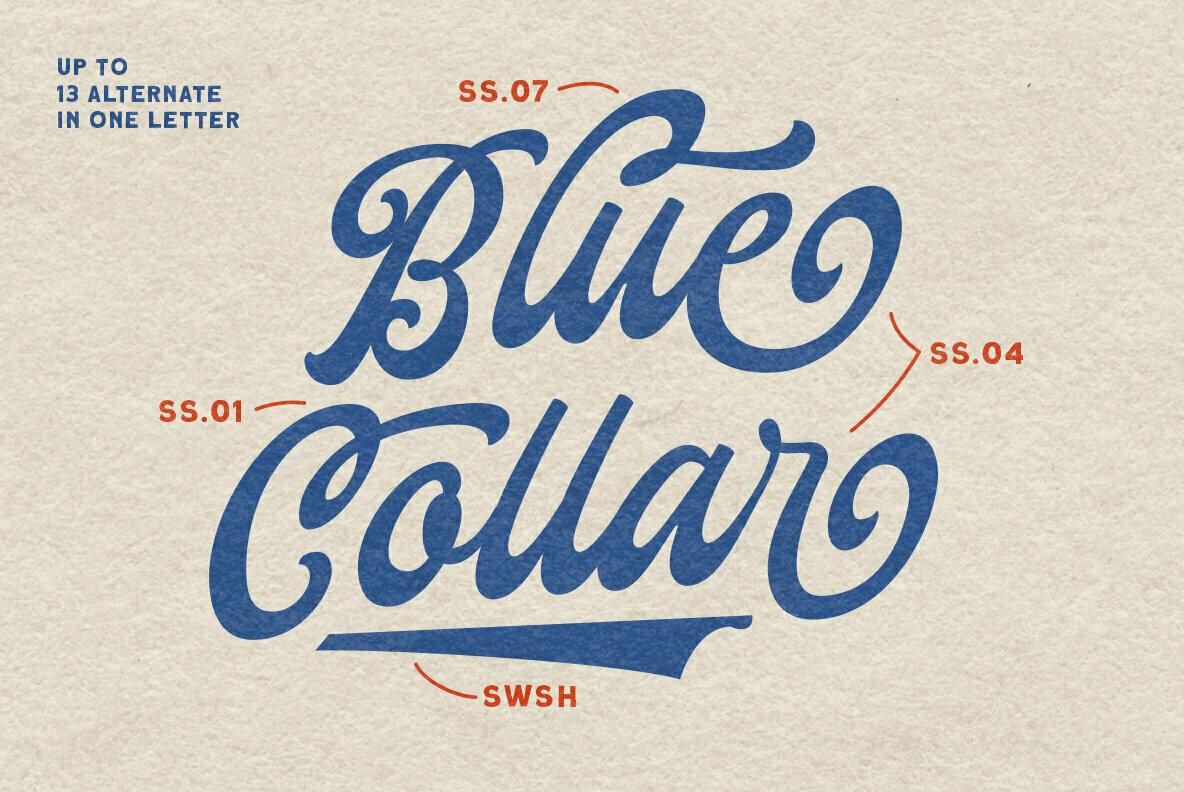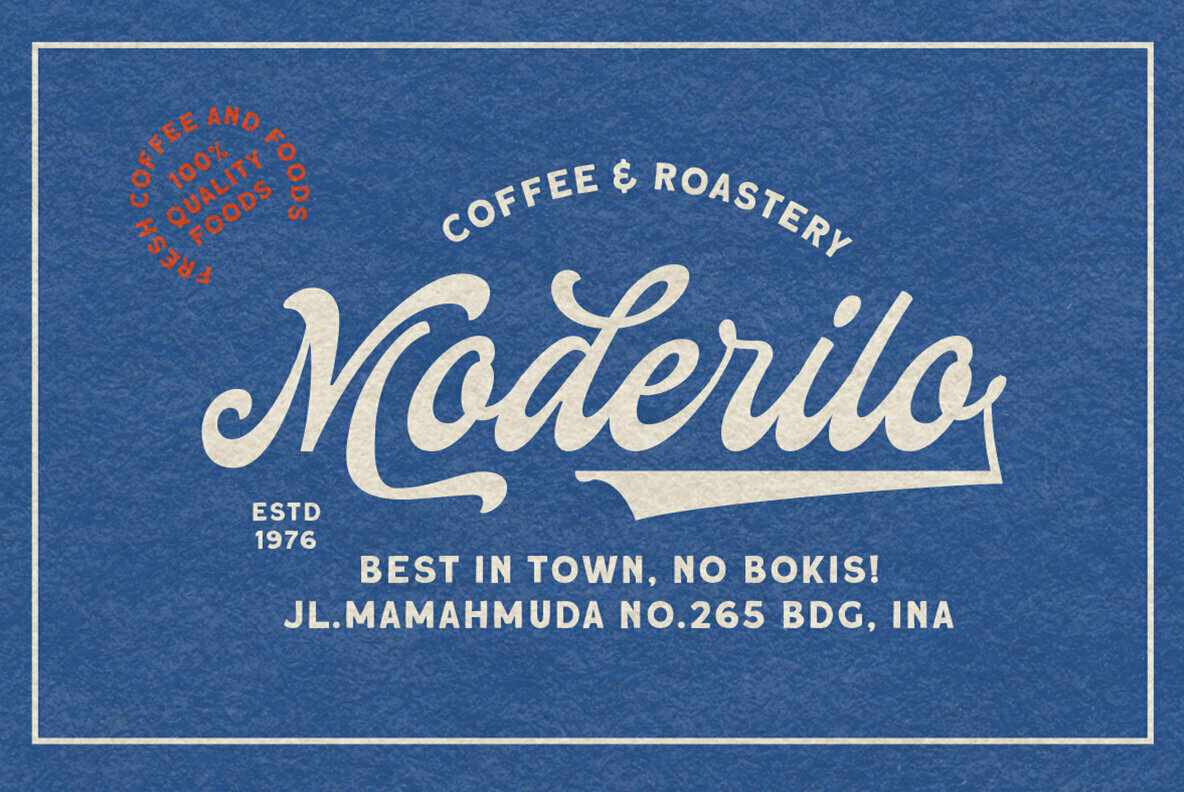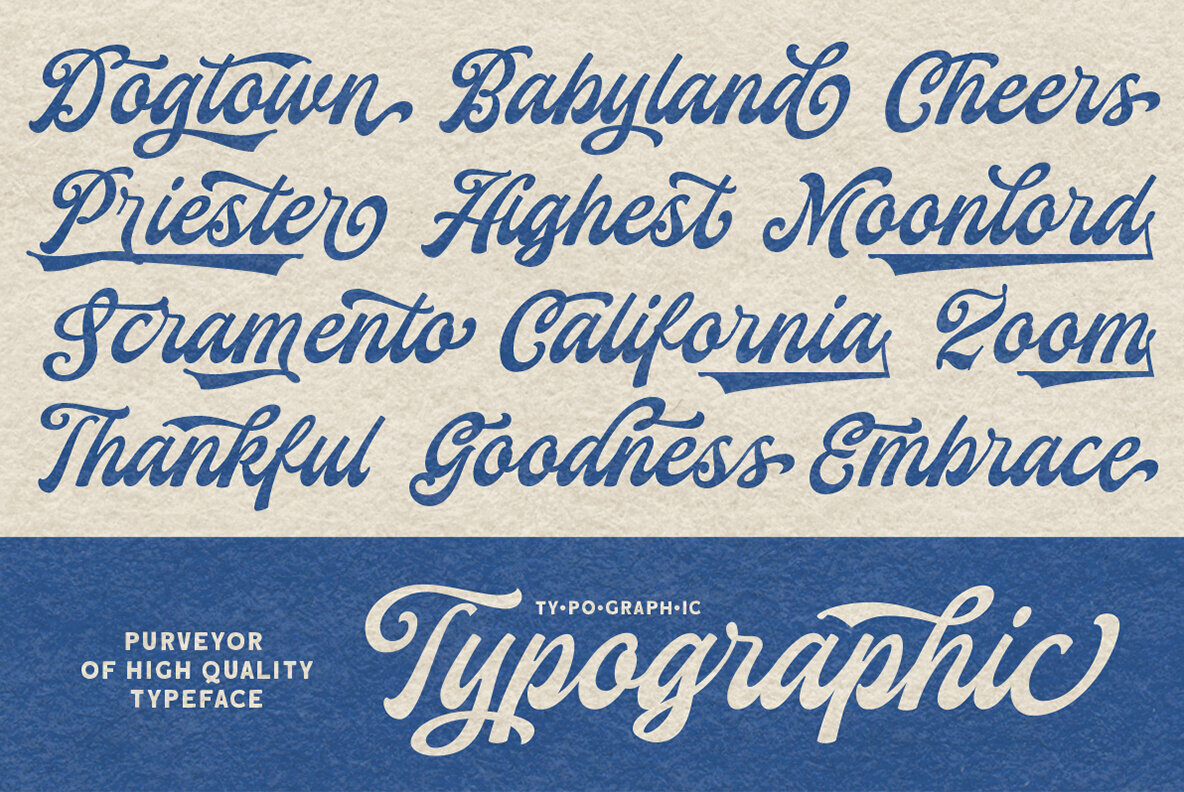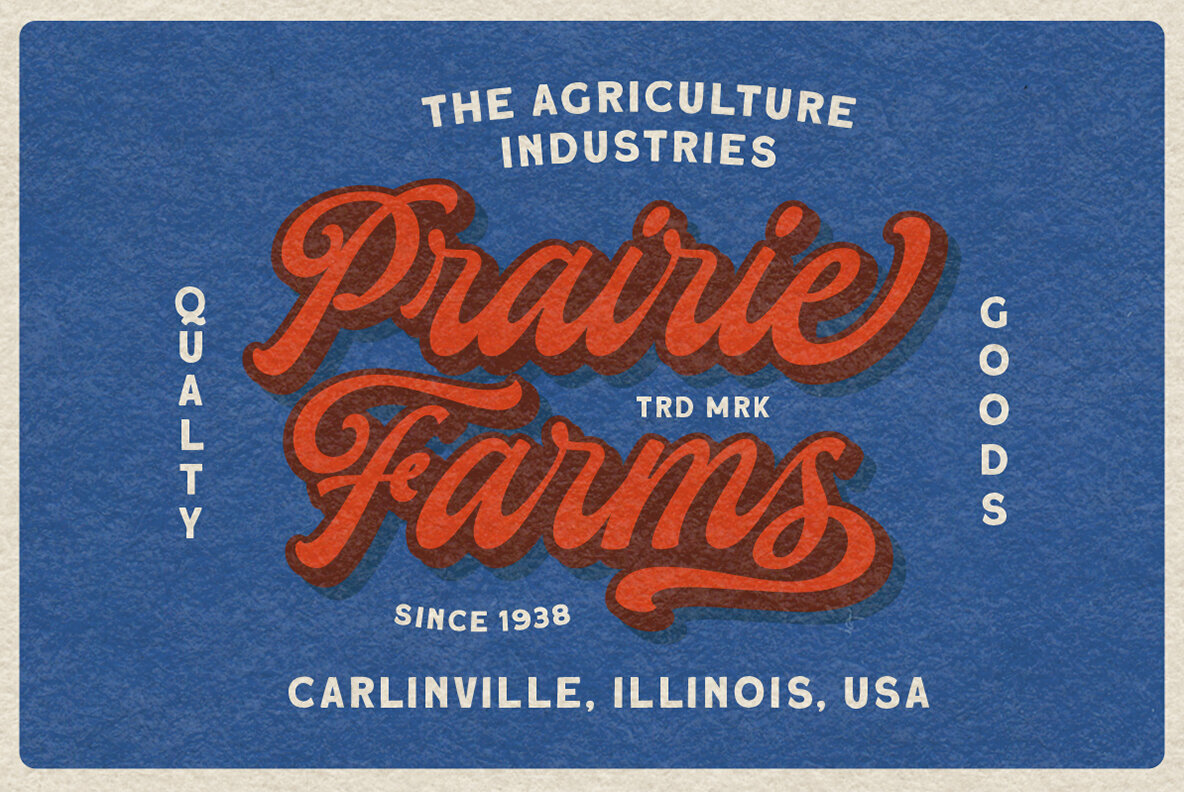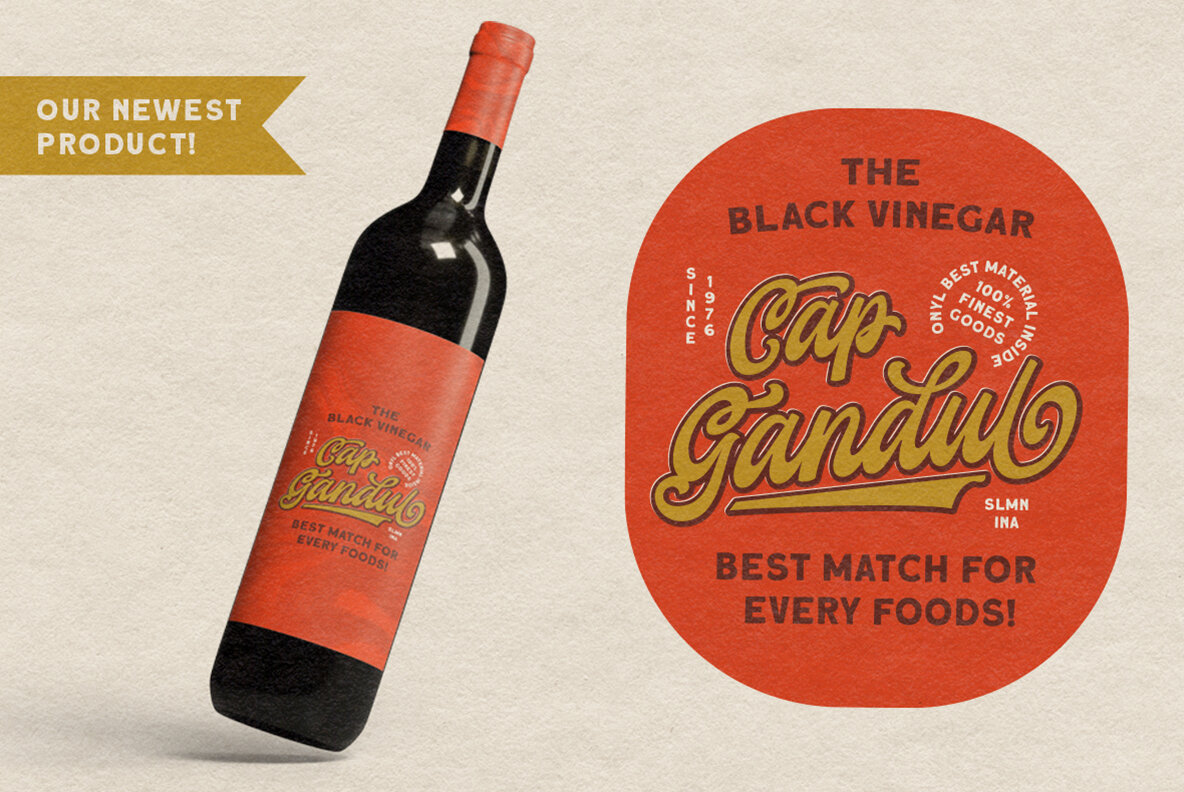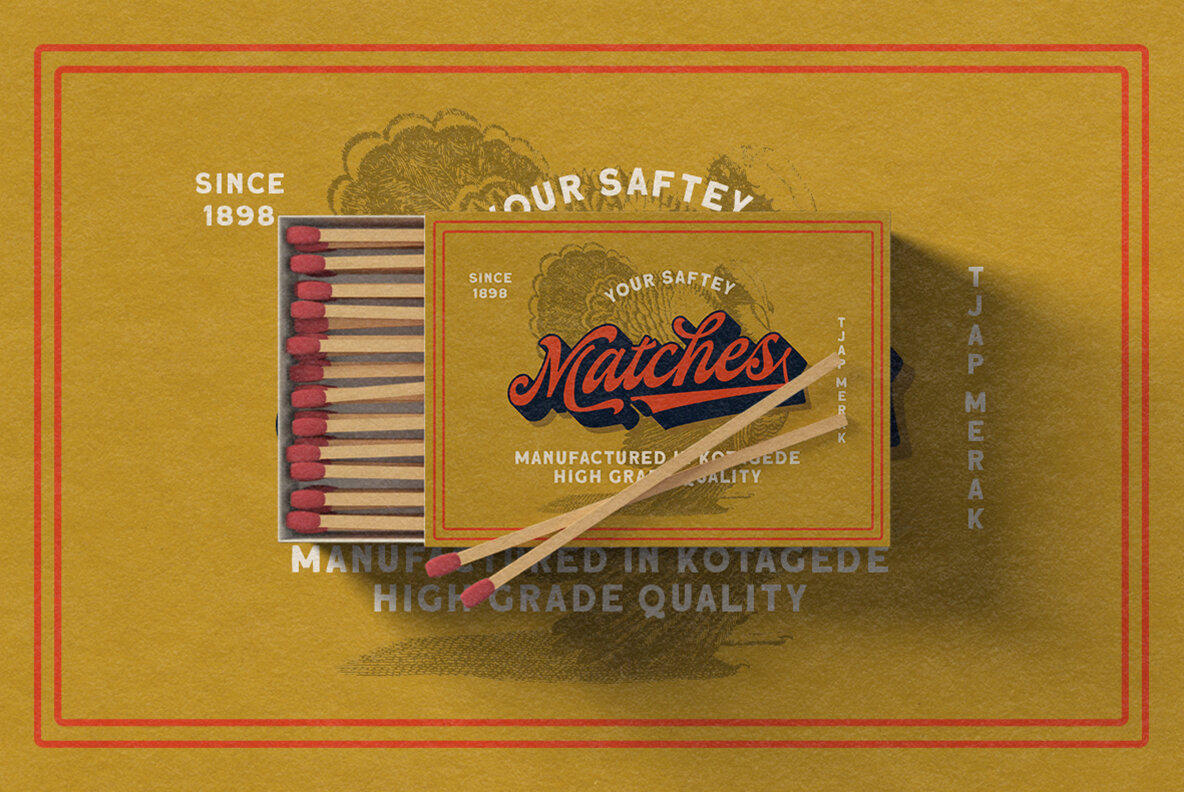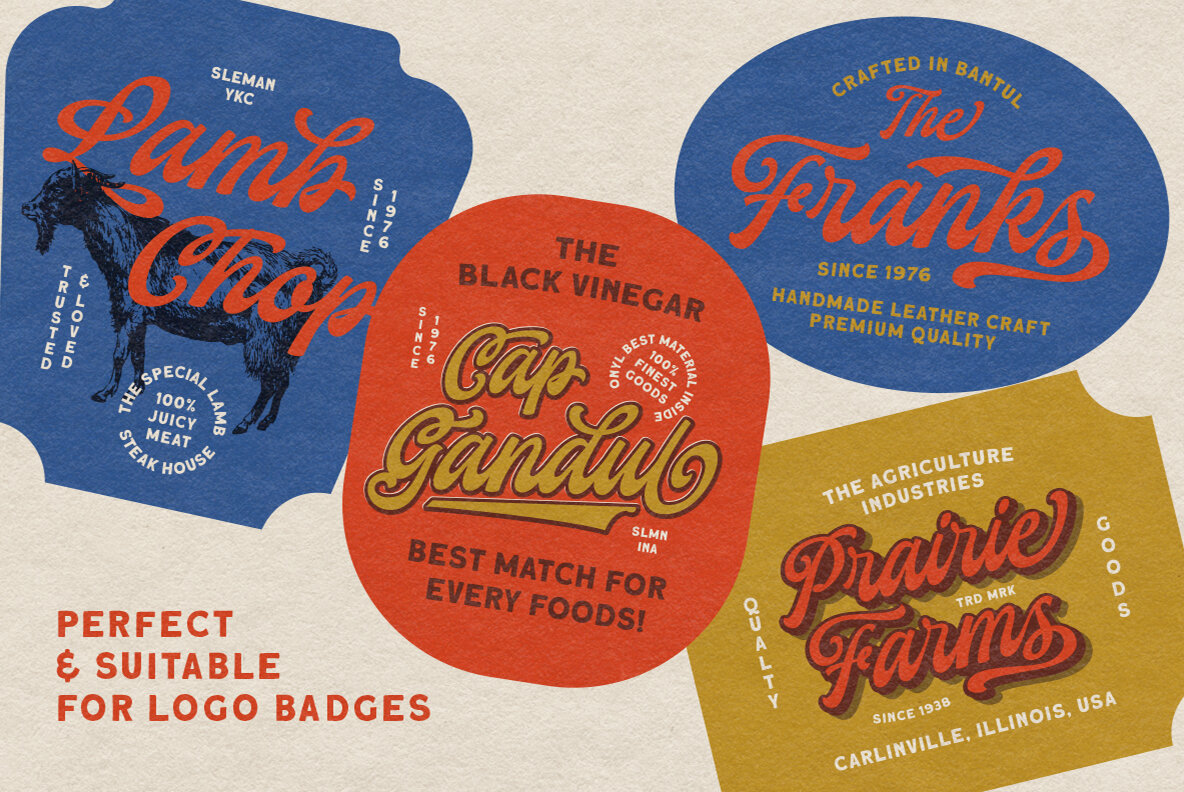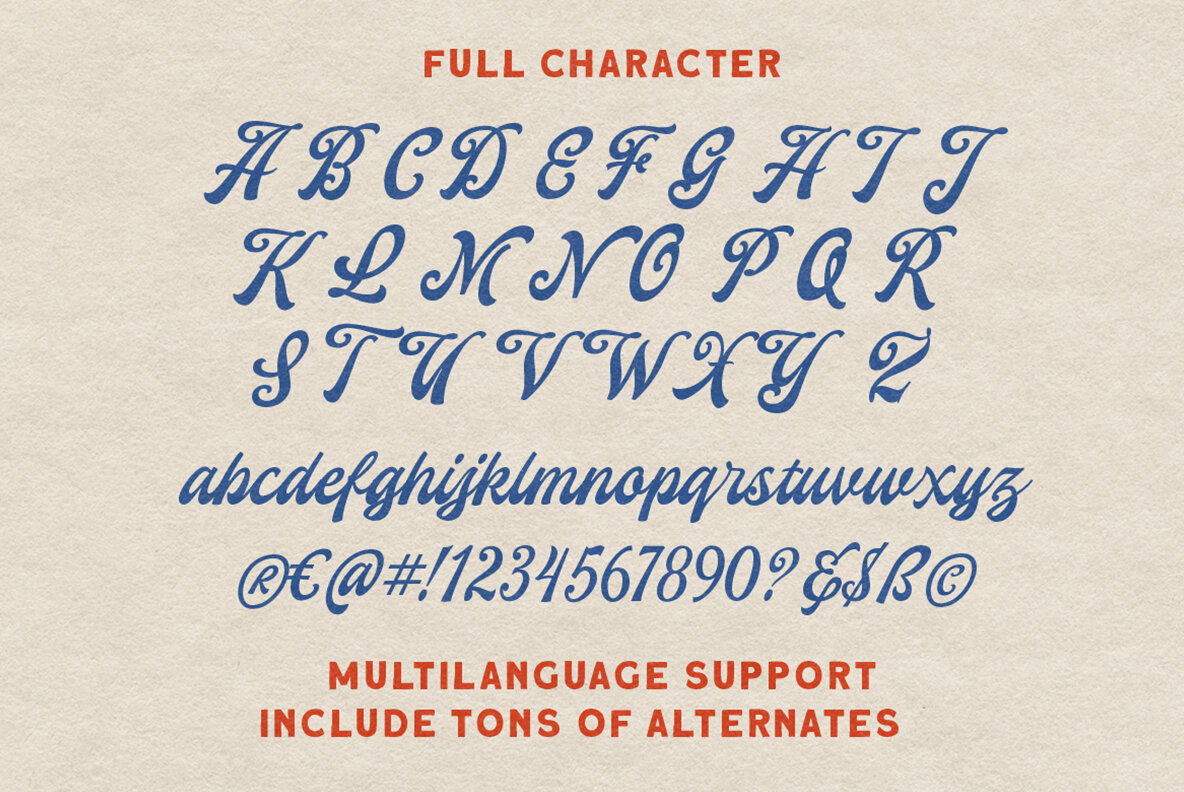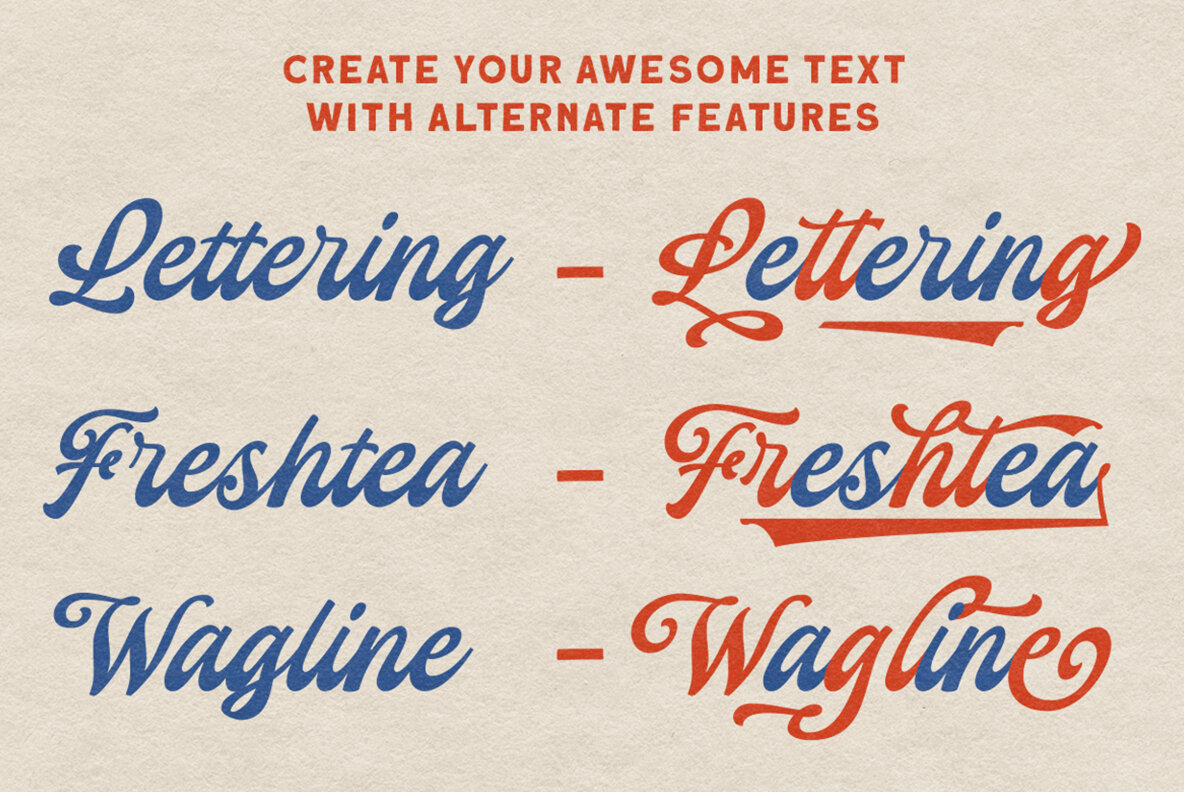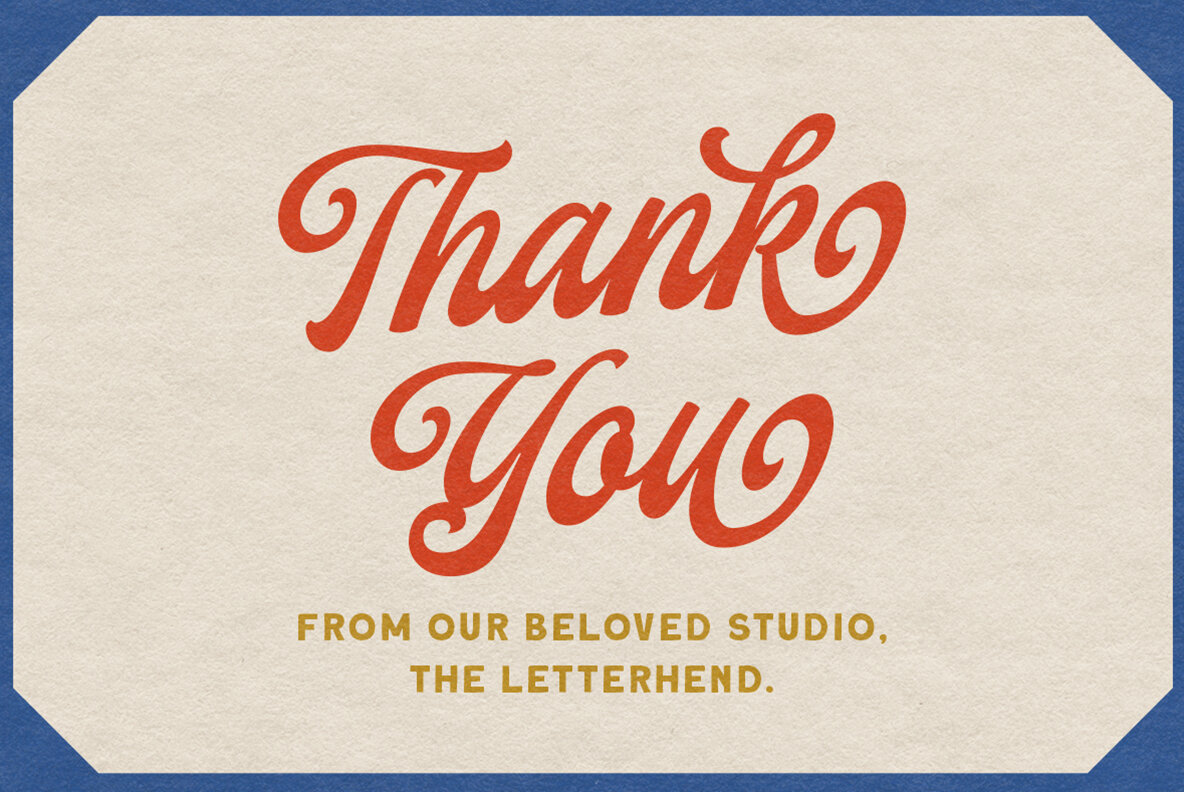
Yorkson Font
Yorkson Regular
Yorkson, a sophisticated script logotype font, invites creative flair into the design world. Crafted for elegance, it integrates over 230 glyphs, offering designers ample freedom to play with its fluid swashes and ligatures. This flexibility makes Yorkson an ideal choice for logos, where a unique and personal touch can be easily added. Yorkson isn't limited to logos alone. Its versatility spans formal applications, seamlessly fitting into invitations, labels, magazines, and books. Whether you're crafting greeting cards, wedding invitations, or packaging concepts, Yorkson provides the polished style that elevates your project.Yorkson: A Script Font for Iconic Logos